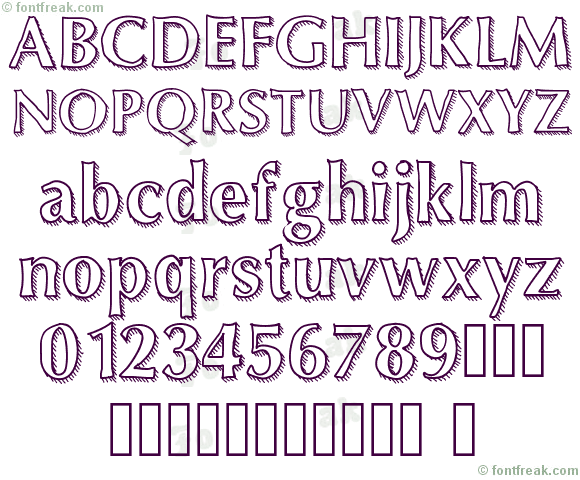
Maximum
The Maximum font by Luedecke Design Font Co. is a captivating display typeface that effortlessly combines personality with versatility. This unique font features a hand-drawn aesthetic, characterized by its playful strokes and charming irregularities. The stroke weight is varied, adding a sense of dynamism to the letters, while the contrasting thick and thin lines create an engaging visual rhythm. The spacing is well-balanced, ensuring readability without sacrificing character, making it suitable for a variety of applications.
Maximum is ideal for creative projects that require a touch of whimsy and originality. It excels in use cases such as wedding invitations, where its artistic flair can enhance the romantic theme. Additionally, this font works wonderfully for movie posters, lending a dramatic and eye-catching appeal that draws viewers in. Restaurant menus can also benefit from Maximum's distinct style, providing a memorable dining experience that reflects the establishment's unique personality. Furthermore, small business owners can utilize this font in branding materials, making their logos and promotional items stand out in a crowded market.
What sets the Maximum font apart is its ability to bridge the gap between professionalism and playfulness. This font does not merely serve as a tool for communication; it becomes a visual storyteller, inviting viewers to engage and connect with the message. For those seeking a Maximum font free download, this typeface offers an exciting opportunity to elevate their designs while embracing a truly unique aesthetic.